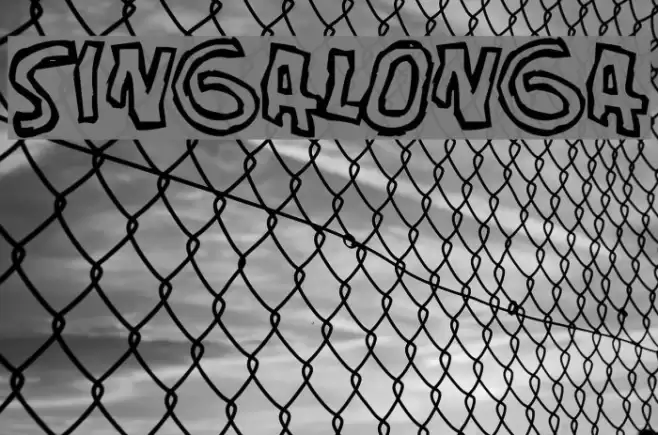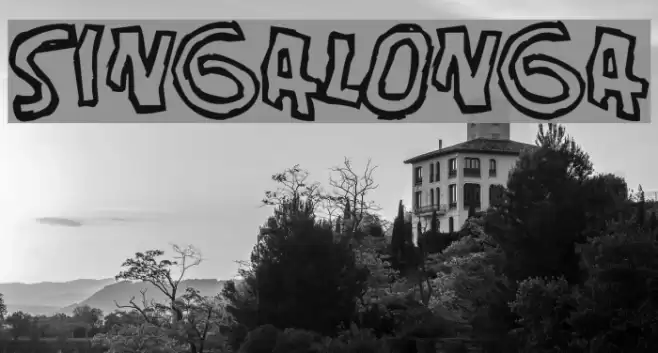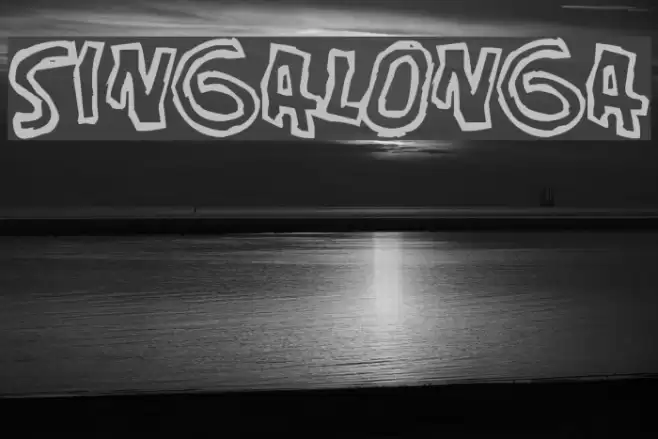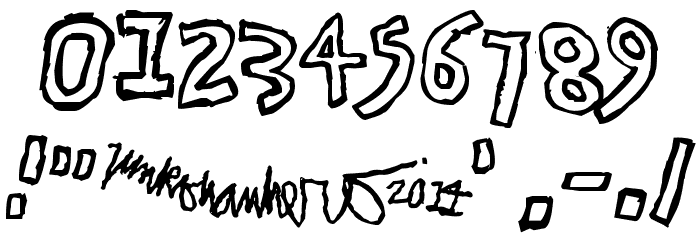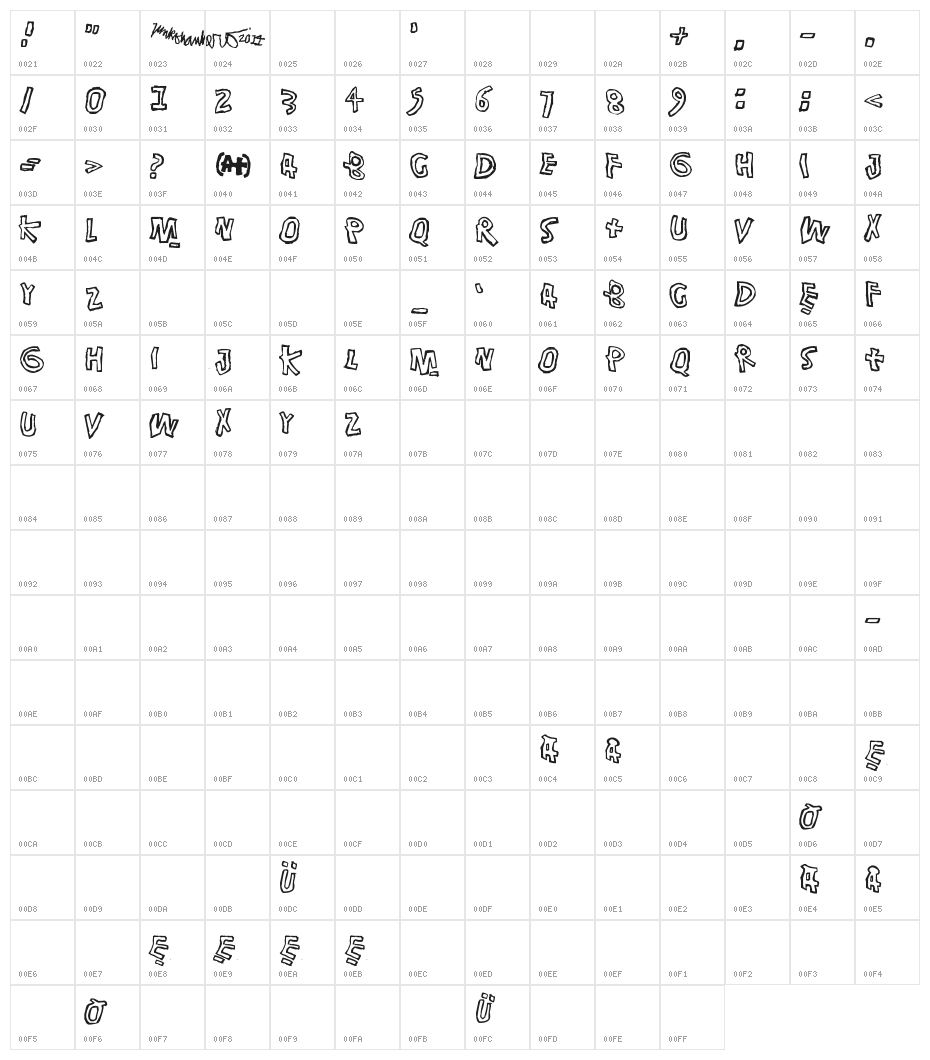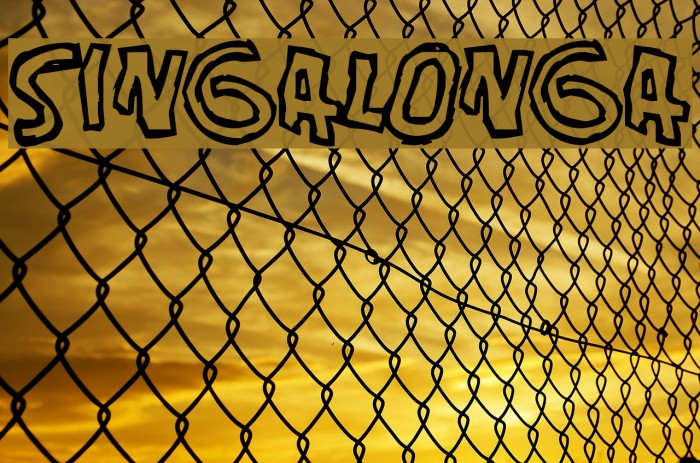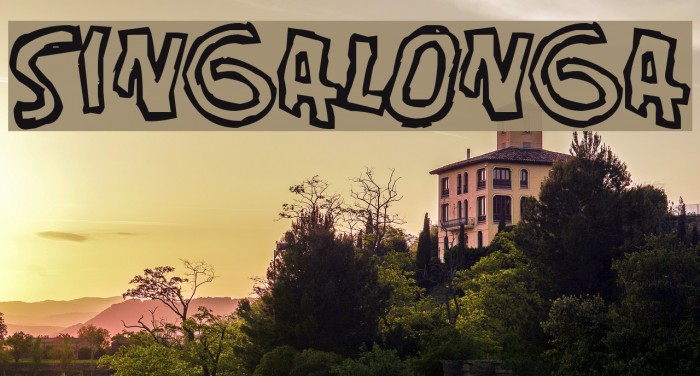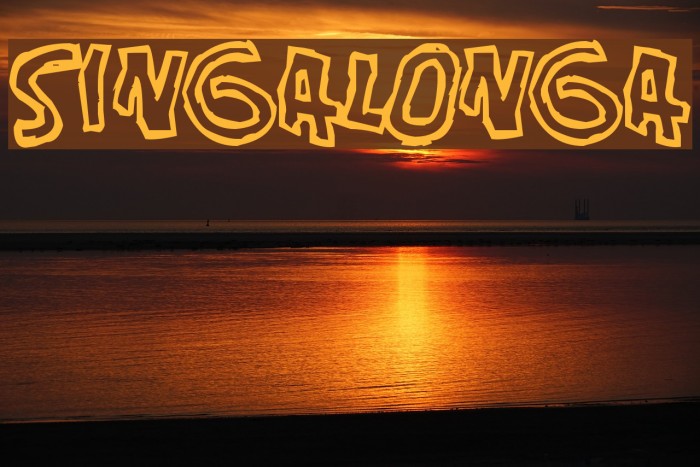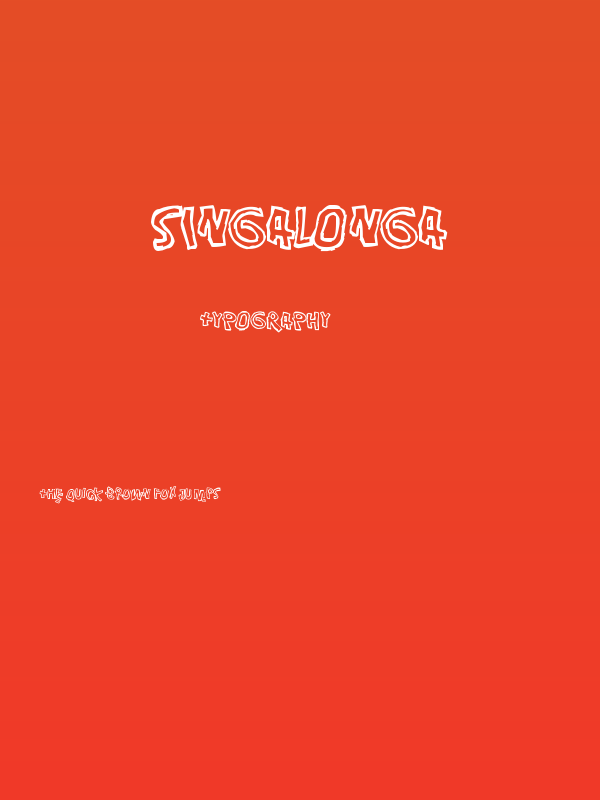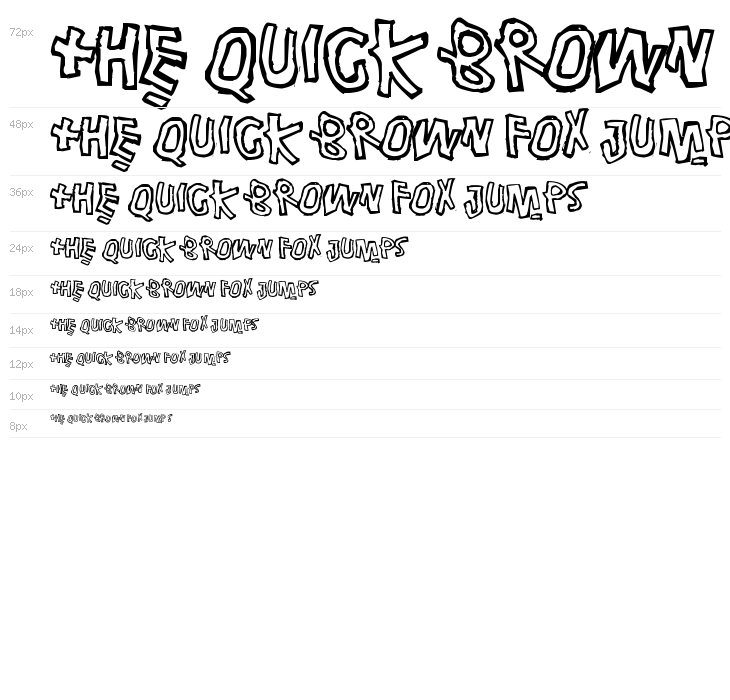
Singalonga Font
Singalonga Description
This font features a bold, hand-drawn style with a playful and energetic appearance. The characters are outlined with a thick, uneven stroke, giving them a dynamic and slightly chaotic feel. Each letter has a unique, irregular shape, contributing to the font's whimsical and informal vibe. The numbers and special characters follow the same design principles, maintaining consistency throughout the set. This font is ideal for projects that require a fun and informal touch, such as children's books, comic strips, or playful branding materials.
A bold, hand-drawn font with a playful and energetic style from Cartoon fonts.
- Proposed Projects: Ideal for children's books, comic strips, playful branding, and informal invitations.